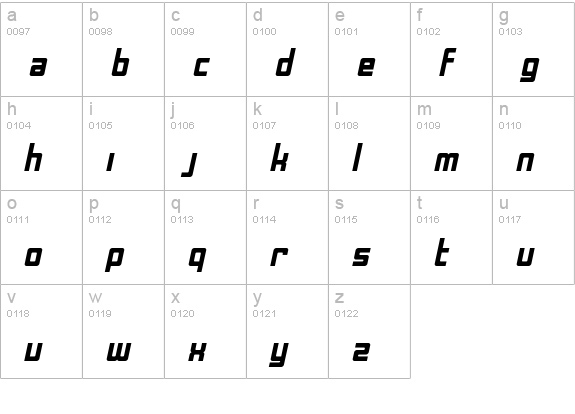
SF Laundromatic Bold Oblique is a strong, high-contrast, italic variant in the SF typeface family \xE2\x80\x94 well suited to headlines, attention-grabbing titles, and strong calls-to-action.
SF Laundromatic Bold Oblique is a captivating and bold typeface that exudes a sense of modernity and confidence. With its sleek and slanted design, this font adds a touch of edginess to any project. Its strong and distinctive letterforms make it perfect for headlines, titles, and branding materials. What sets SF Laundromatic Bold Oblique apart is not just its striking aesthetics, but also its accessibility. This font is freely available to download at FontsMarket.com, allowing designers and creatives to effortlessly incorporate it into their work without any financial constraints. Whether you're designing a website, creating an eye-catching poster, or crafting a memorable logo, SF Laundromatic Bold Oblique is the ideal choice to make a bold statement. Its versatility makes it suitable for a wide range of applications, from fashion and lifestyle brands to tech startups and creative agencies. The sharp slant and thick strokes of SF Laundromatic Bold Oblique give it a dynamic and energetic feel, instantly grabbing attention and conveying a sense of forward motion. Its unique personality adds a touch of excitement and modernity to any design, making it stand out from the crowd. With SF Laundromatic Bold Oblique, you have the freedom to unleash your creativity and bring your vision to life. Its freely available download at FontsMarket.com allows you to explore the font's full potential without any restrictions or limitations. So, if you're looking for a bold and captivating typeface that combines modernity with a touch of edginess, look no further than SF Laundromatic Bold Oblique. Download it today from FontsMarket.com and let your designs shine with its distinctive and eye-catching aesthetic.